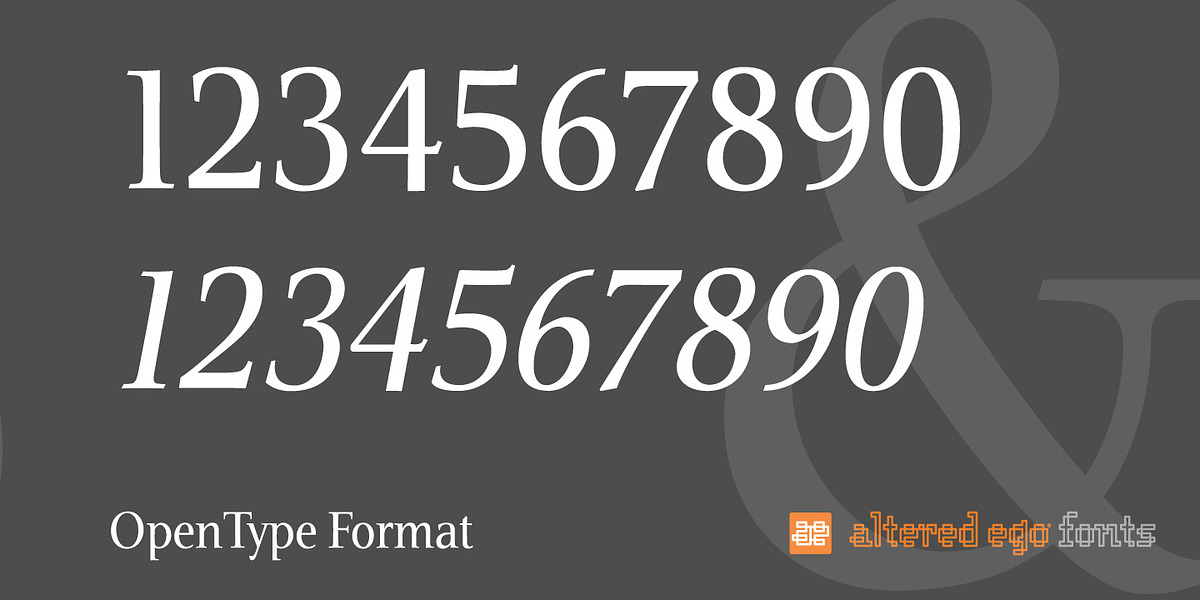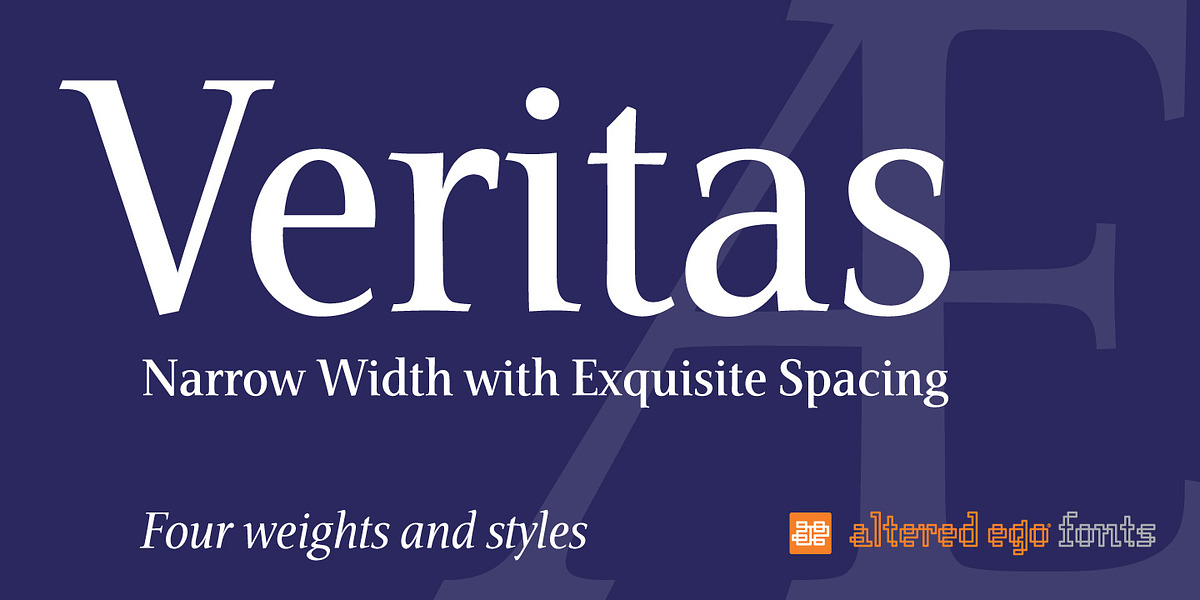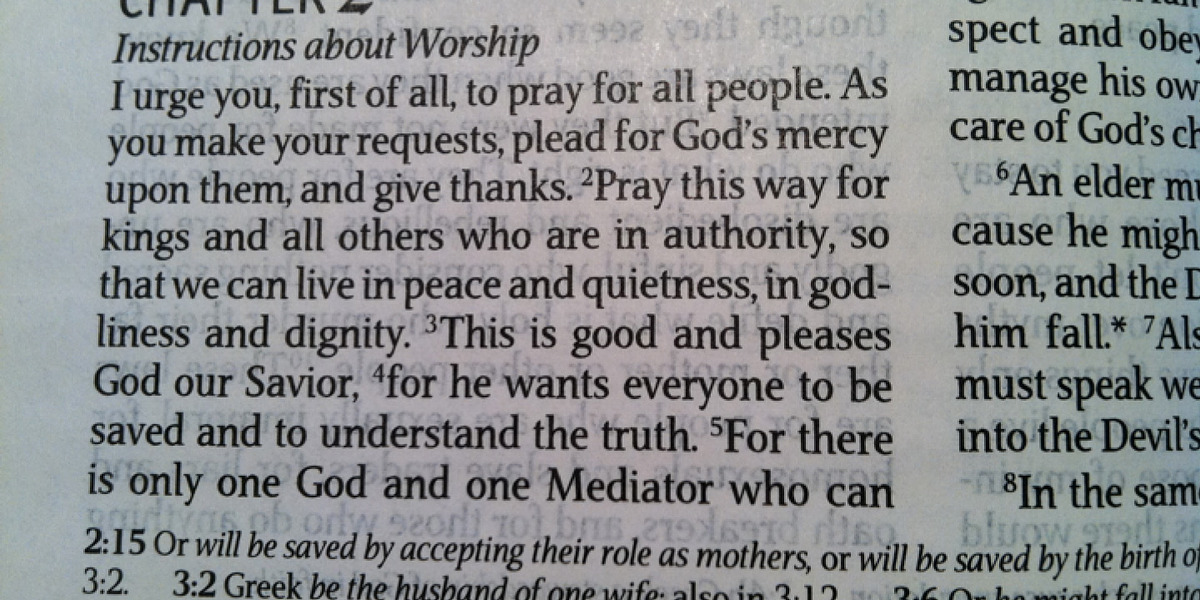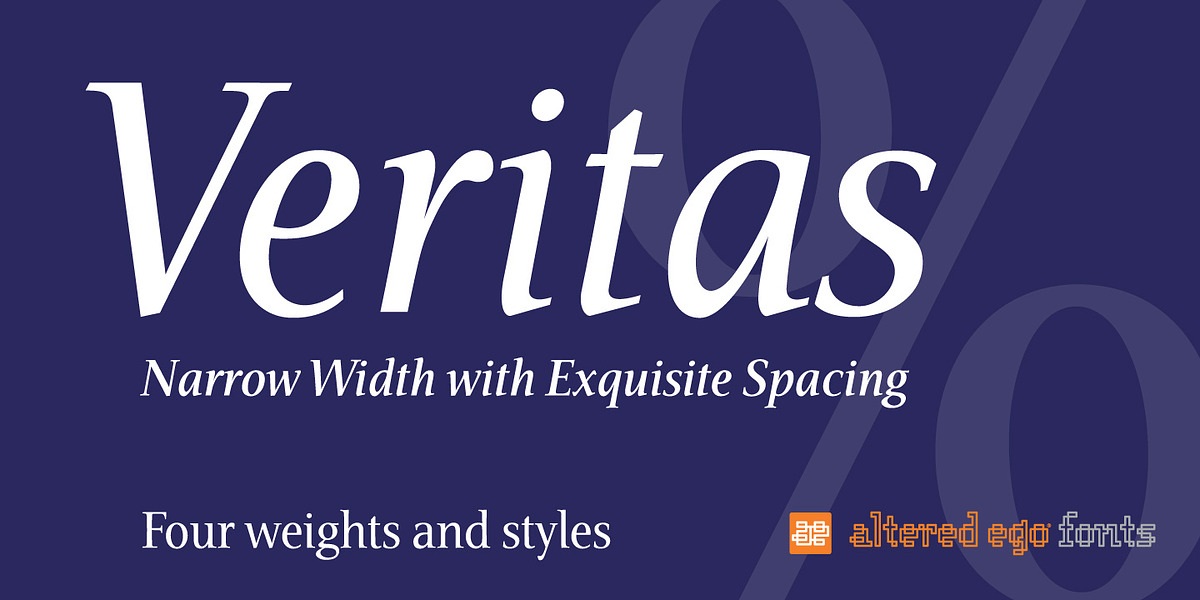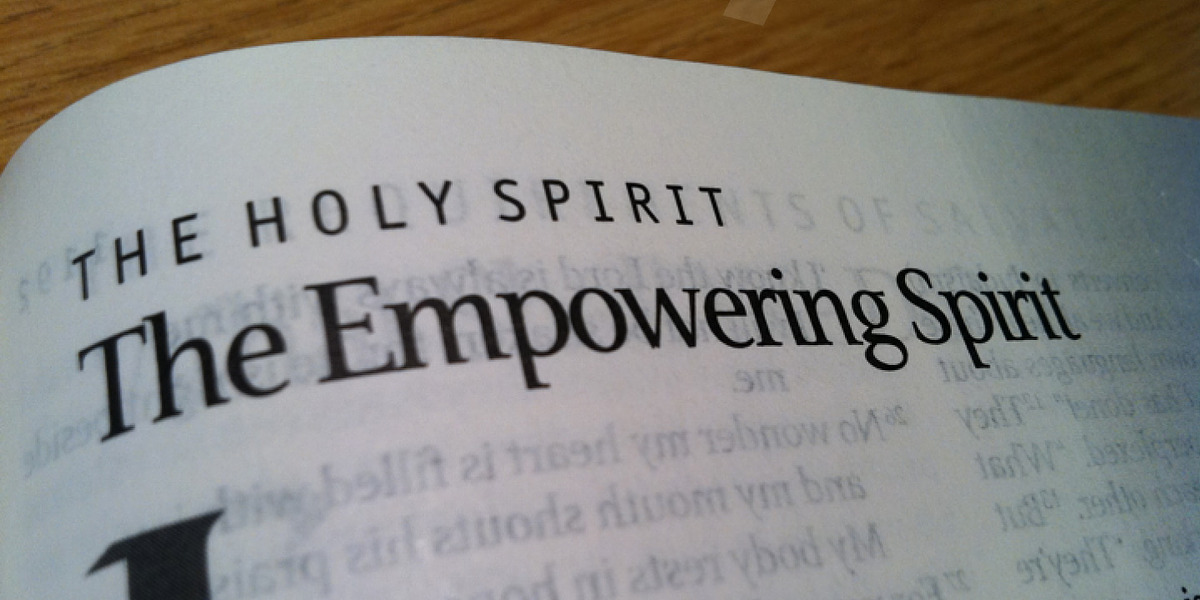
Veritas AE
Veritas AE is a serif typeface specifically designed for text settings where space is limited. Its condensed width and taller x-height than Times Roman allow for increased text density without sacrificing readability. The font features meticulous kerning, even in the number set, to ensure optimal legibility.